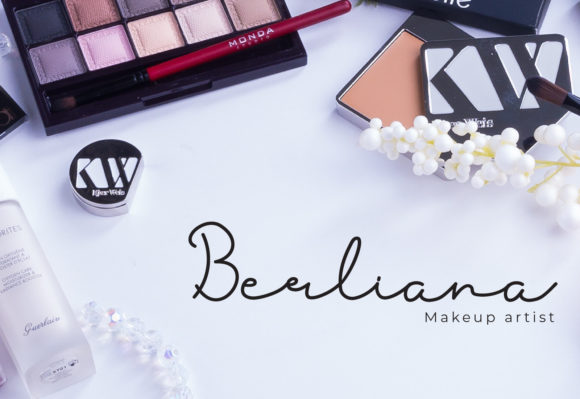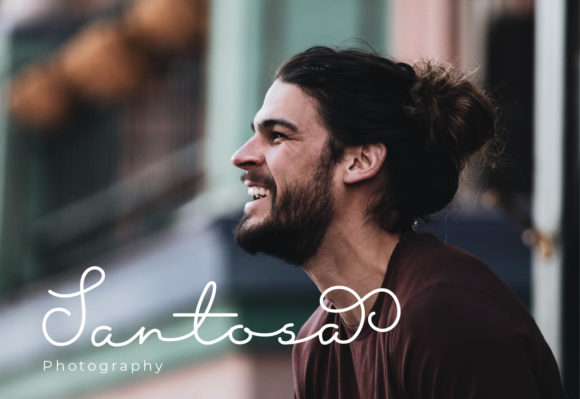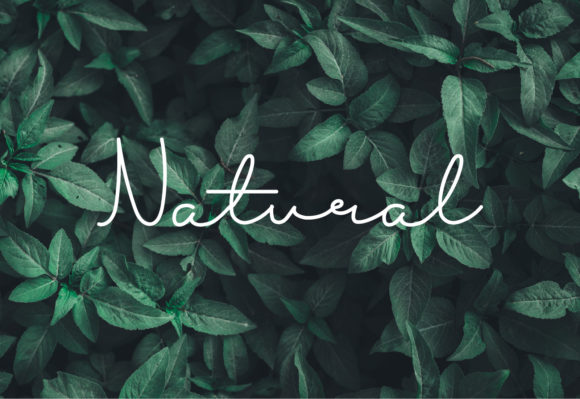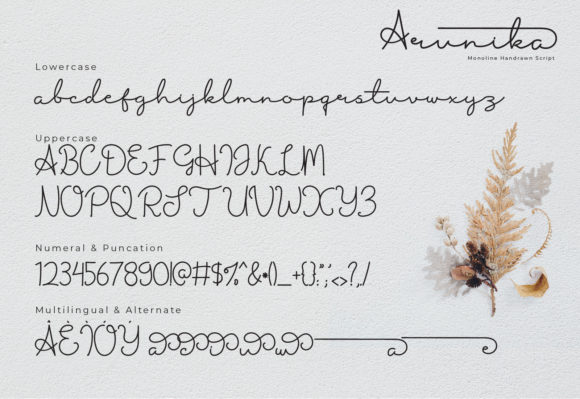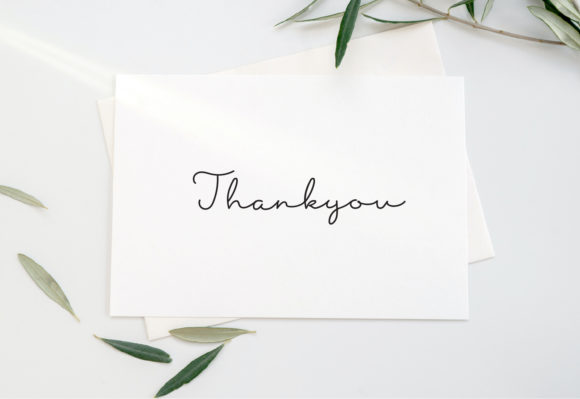
The Spark of Creativity: Introducing Arunika Font
Have you ever stared at a blank canvas, waiting for the perfect idea to strike? That’s exactly what happened to us when we first laid eyes on the stunning Arunika Font. With its elegant, handwritten feel, it’s the perfect spark to ignite your creativity and take your design projects to the next level.
Arunika Font is a beautifully crafted, light handwritten font that adds a touch of luxury to any design. Its unique feel and stunning impact make it a valuable asset for designers looking to create something truly special. Whether you’re working on a high-end branding project or a whimsical wedding invitation, Arunika Font is the perfect addition to bring your vision to life.
So, why is Arunika Font a must-have for designers? For starters, its versatility and elegance make it a perfect fit for a wide range of design projects, from fashion to fine art. Its unique feel and stunning impact will add a touch of sophistication and luxury to any design, setting you apart from the rest.
- Font Family: Arunika is a beautiful and elegant script font designed for various purposes.
- Unique Characteristics: Arunika font features a unique blend of traditional and modern elements, with intricate details and subtle flourishes that give it a sophisticated and elegant appearance.
Arunika Font Review
As a designer, I had the chance to work with the Arunika font, and I must say it’s a unique and interesting choice. Here are my honest thoughts on its strengths and weaknesses.
- Unique aesthetic**: Arunika has a distinct and exotic feel to it, which can add a lot of character to your design projects.
- Good for title work**: The font’s bold and playful nature makes it well-suited for headings and titles, where you want to draw attention.
- Supports multiple languages**: This is a great feature for designers who work with international clients or need to create content in multiple languages.
- Limited legibility**: The font’s unique design can sometimes make it difficult to read, especially in smaller sizes or at a distance.
- May not be suitable for body text**: Due to its playful nature, Arunika may not be the best choice for large blocks of text, where readability is crucial.
Arunika is a great font for designers who want to add a touch of personality to their work. While it has its limitations, it can be a fantastic choice for title work, headings, and other design elements where you want to make a statement. Just be mindful of its potential limitations and use it wisely.
Tips for Getting the Most Out of Arunika Font
Use Arunika Font for titles and headings to add a touch of elegance and sophistication to your designs.
Experiment with different font sizes and styles to achieve the desired look.
Pair Arunika Font with other fonts to create a unique and visually appealing combination.
Arunika Font is ideal for:
Business cards and brochures
Menus and restaurant signage
Any design project that requires a touch of elegance and sophistication.
Alternatives to Arunika Font for Designers
1. Nunito Font
Nunito Font is a sans-serif typeface that offers a modern and clean look. It’s perfect for designing logos, headers, and body text where simplicity and readability are key. Nunito Font has a more geometric and rounded feel compared to Arunika Font, which has a more elegant and cursive touch. When to use: For modern, minimalist designs where simplicity is the focus.
2. Merriweather Font
Merriweather Font is a classic serif typeface that exudes elegance and sophistication. It’s ideal for designing body text, books, and other materials where a traditional and professional look is desired. Merriweather Font has a more formal and traditional feel compared to Arunika Font, which has a more modern and playful touch. When to use: For traditional, formal designs where elegance is the focus.